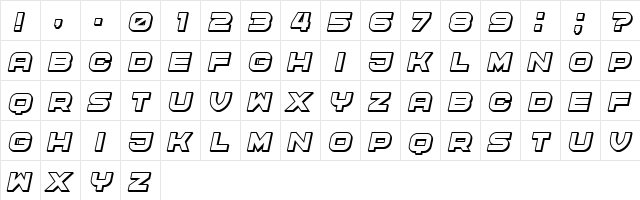
Cyber Princess 3D Italic
Design Context for Cyber Princess 3D Typeface
Cyber Princess 3D channels digital-age aesthetics through its sharp, structured letterforms — ideal for brands that want to signal innovation. Its italic angle brings a sense of urgency and motion to the letterforms.
Pro Tip: Use Cyber Princess 3D in combination with a neutral sans for body text. Let it define the brand voice in headlines while keeping reading comfortable elsewhere.